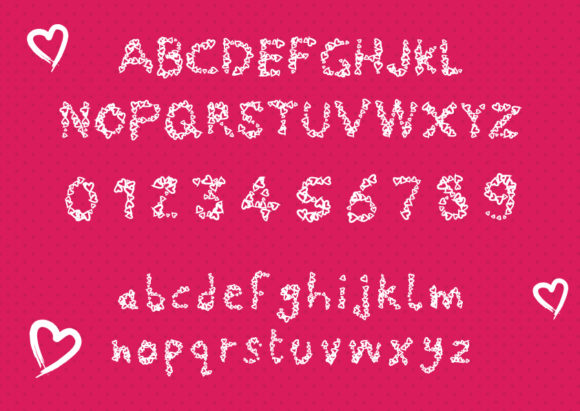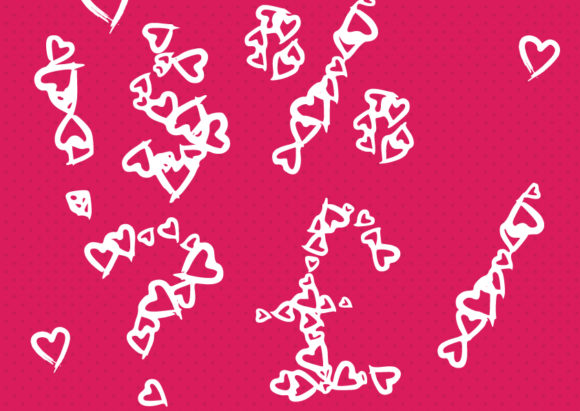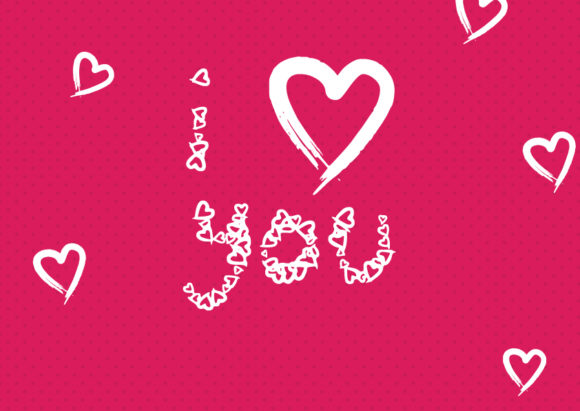
Heart Font: The Ultimate Dingbats Font for Creative Projects
Are you looking for a font that can add a touch of playfulness and whimsy to your designs? Look no further than the Heart Font! This incredibly unique and lovely dingbats font is perfect for designers, crafters, and educators who want to create engaging and fun projects for kids. In this article, we’ll explore the features and benefits of the Heart Font, and show you how to get creative with its childlike playfulness.
What is Heart Font?
Heart Font is a dingbats font that features adorable heart-shaped characters, including letters, numbers, and symbols. This font is designed to be playful, fun, and easy to read, making it perfect for kids’ projects, school materials, and craft designs. The Heart Font is available for download and can be used on various devices, including computers, tablets, and smartphones.
Features of Heart Font
The Heart Font has several features that make it an excellent choice for designers and crafters:
- Unique and Lovely Design: The Heart Font features heart-shaped characters that are both cute and playful.
- Childlike Playfulness: The font’s design is reminiscent of children’s handwriting, making it perfect for kids’ projects and school materials.
- Easily Readable: The Heart Font is clear and easy to read, making it suitable for a wide range of applications.
- Versatile: The font includes letters, numbers, and symbols, making it versatile for various design projects.
Benefits of Using Heart Font
The Heart Font offers several benefits for designers, crafters, and educators:
- Adds a Touch of Whimsy: The Heart Font adds a playful touch to any design project, making it perfect for kids’ materials and craft designs.
- Engages Kids: The font’s childlike playfulness is sure to engage kids and make learning fun.
- Customizable: The font can be customized to fit various design projects, including changing the color, size, and style.
Creative Ways to Use Heart Font
The Heart Font is a versatile font that can be used in a variety of creative ways:
- Kids’ Projects: Use the Heart Font to create fun and engaging kids’ projects, such as worksheets, posters, and activity sheets.
- School Materials: The font is perfect for school materials, including newsletters, flyers, and certificates.
- Craft Designs: Use the Heart Font to create cute and playful craft designs, such as card making, scrapbooking, and DIY projects.
- Digital Designs: The font can be used in digital designs, including social media graphics, blog posts, and website headers.
Tips for Getting the Most Out of Heart Font
Here are some tips for getting the most out of the Heart Font:
- Experiment with Colors: Try using different colors to match your design project’s theme or color scheme.
- Mix and Match: Combine the Heart Font with other fonts to create a unique and playful design.
- Use it for Headings: Use the Heart Font for headings and titles to add a touch of whimsy to your design.
- Get Creative with Symbols: Use the font’s heart-shaped symbols to add a playful touch to your design.
The Heart Font is an incredibly unique, lovely, and cute dingbats font that is perfect for designers, crafters, and educators who want to add a touch of playfulness to their projects. With its childlike playfulness and easily readable design, the Heart Font is sure to engage kids and make learning fun. Whether you’re creating kids’ projects, school materials, or craft designs, the Heart Font is a versatile font that can help you achieve your creative goals.